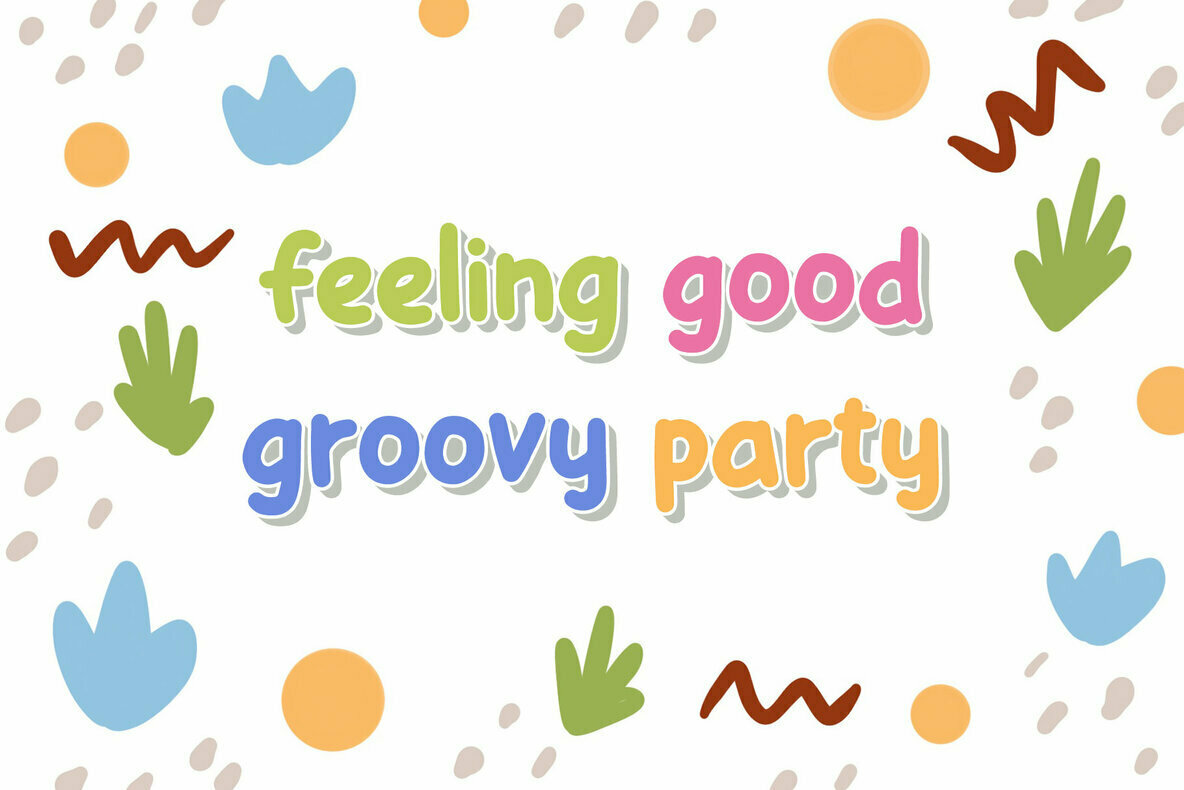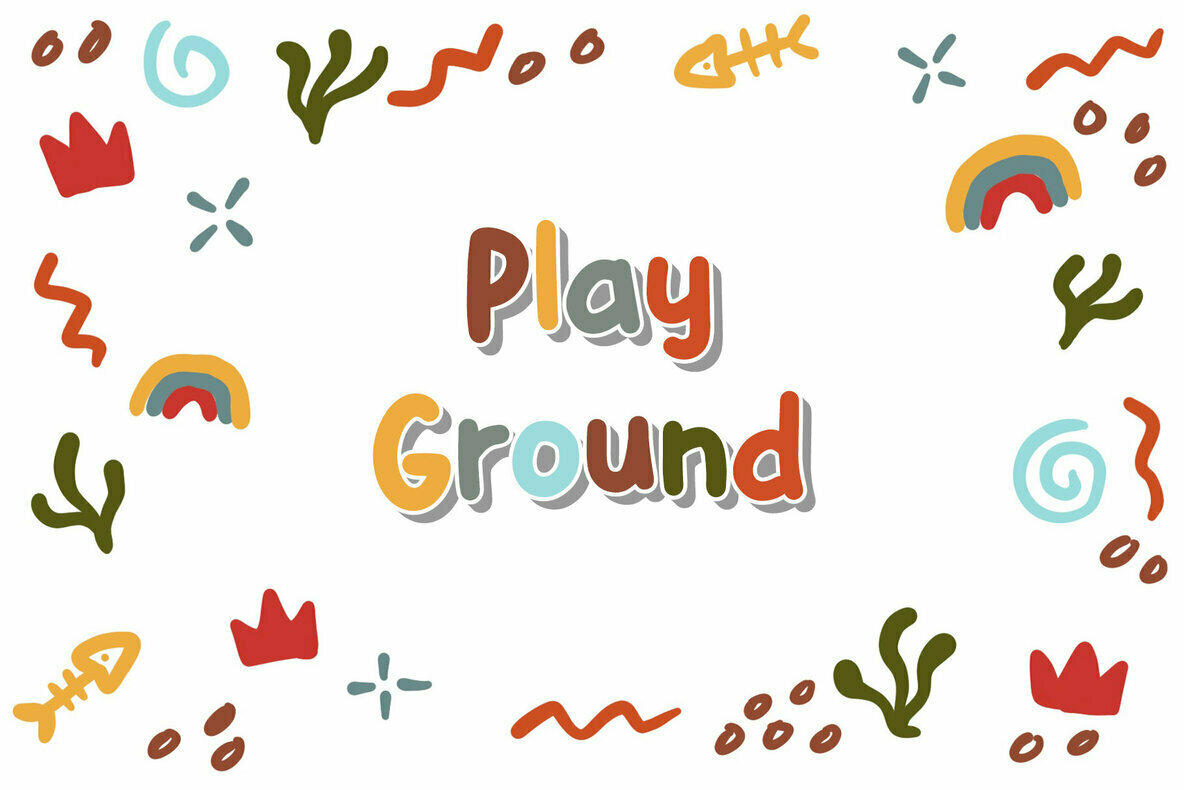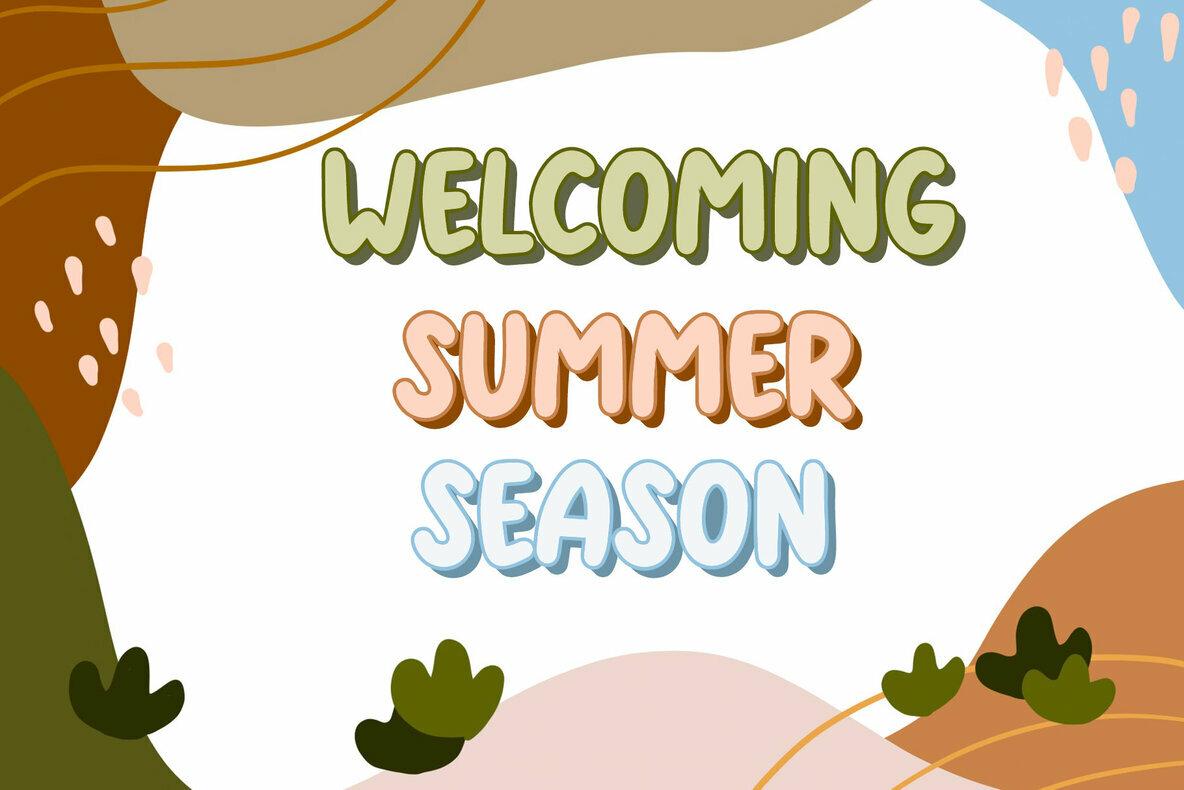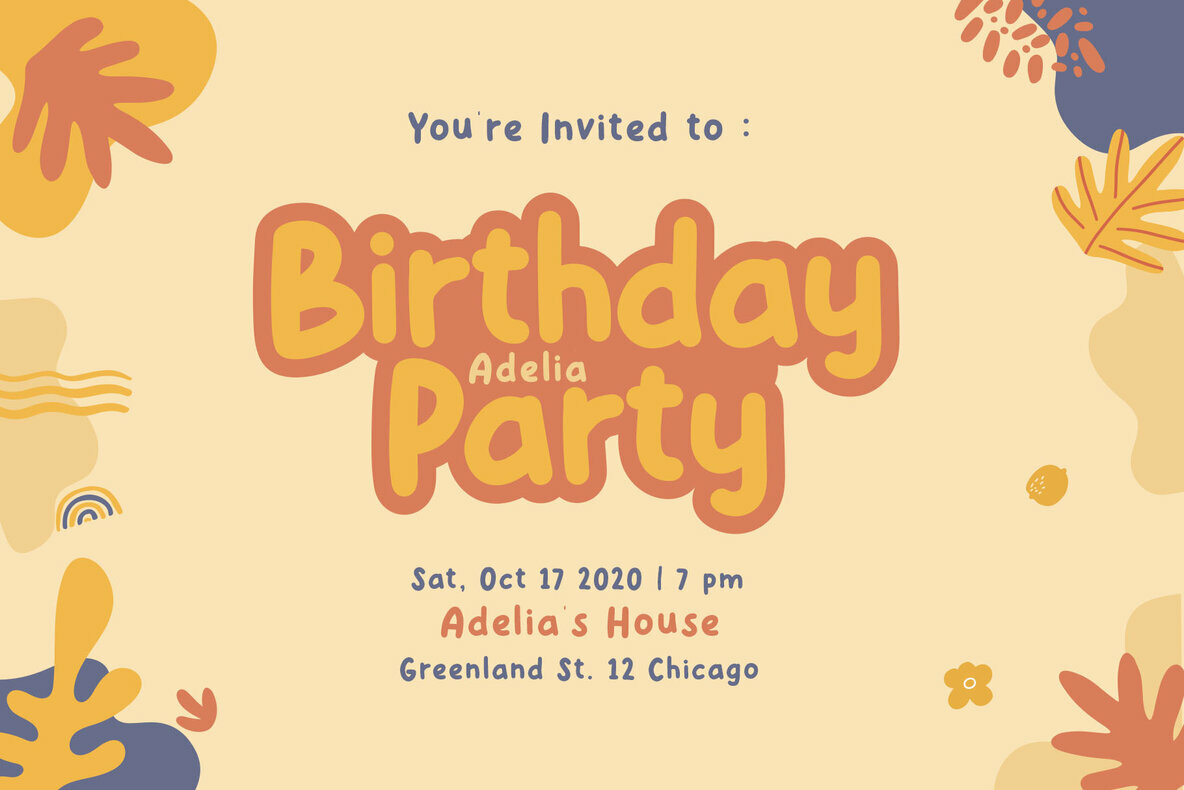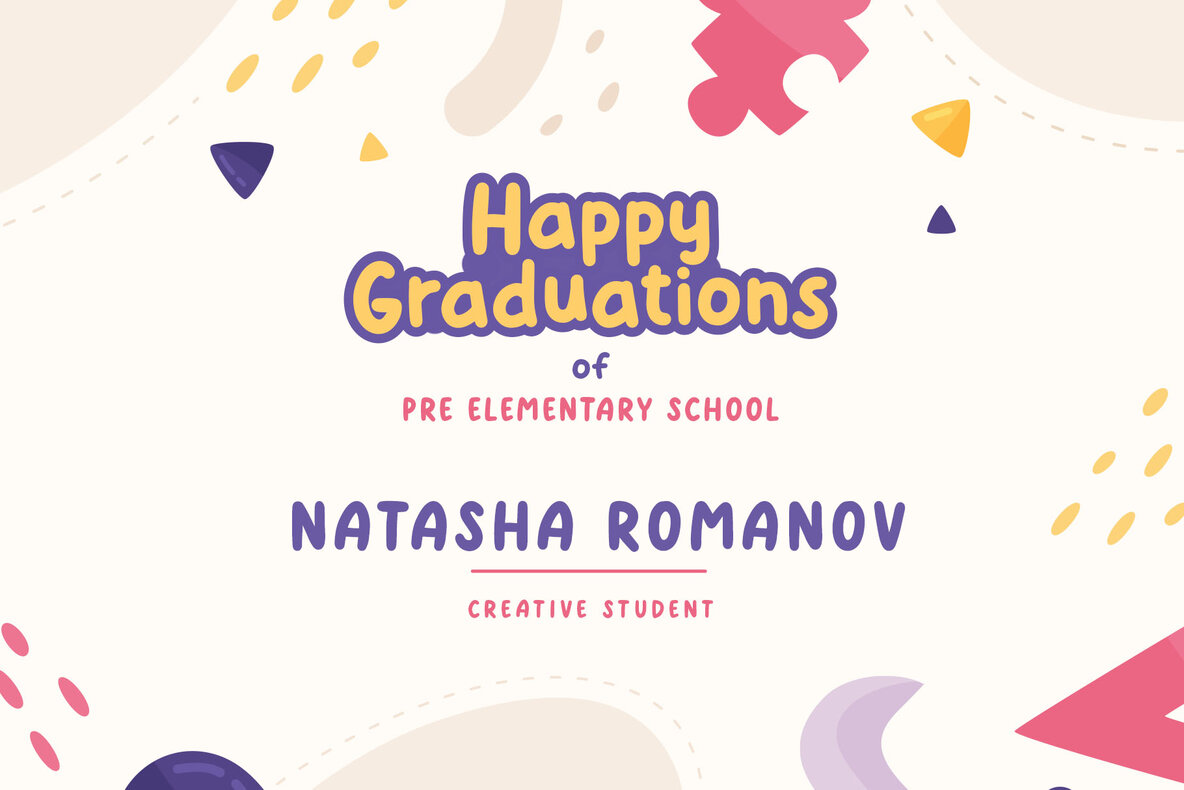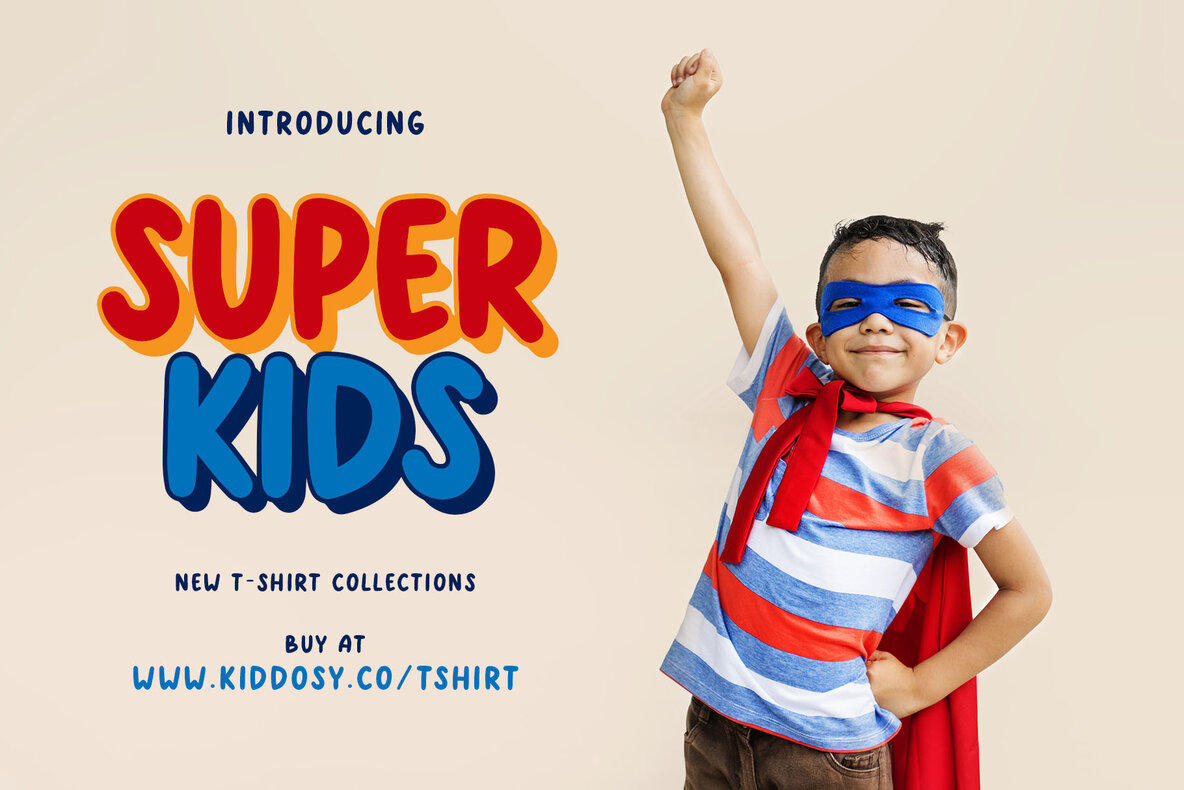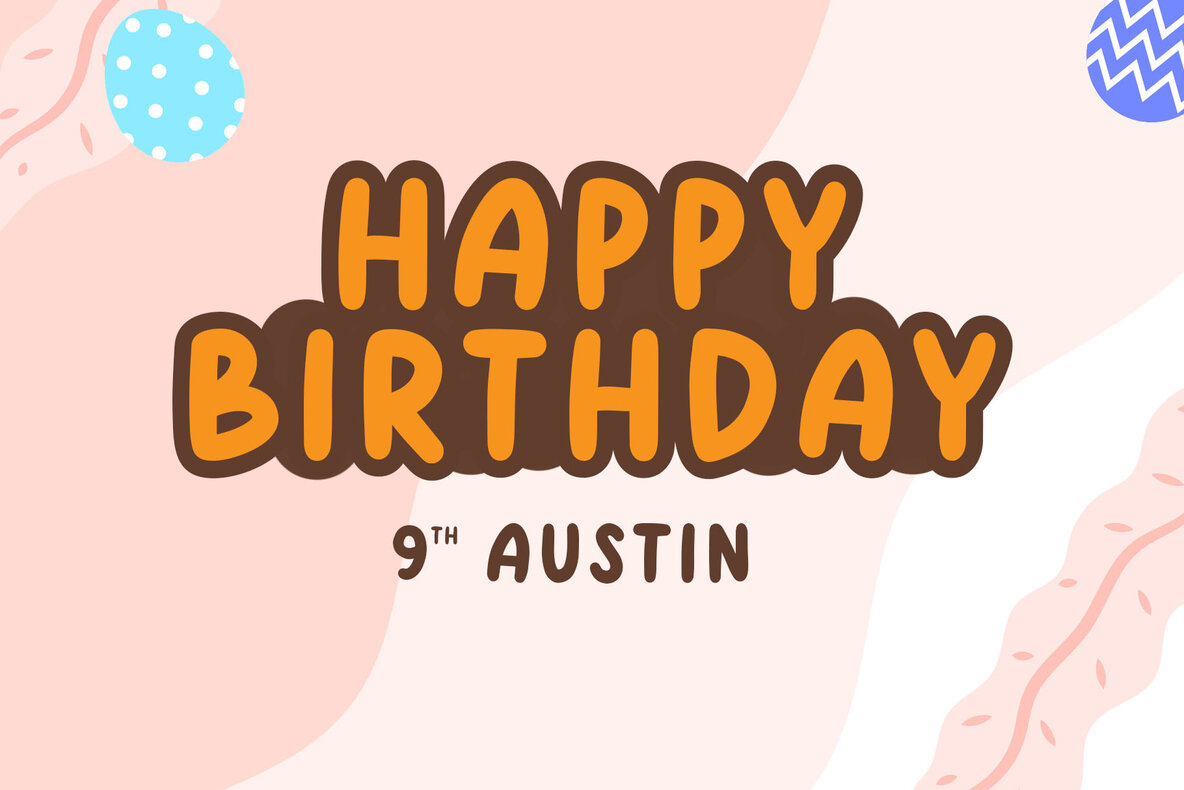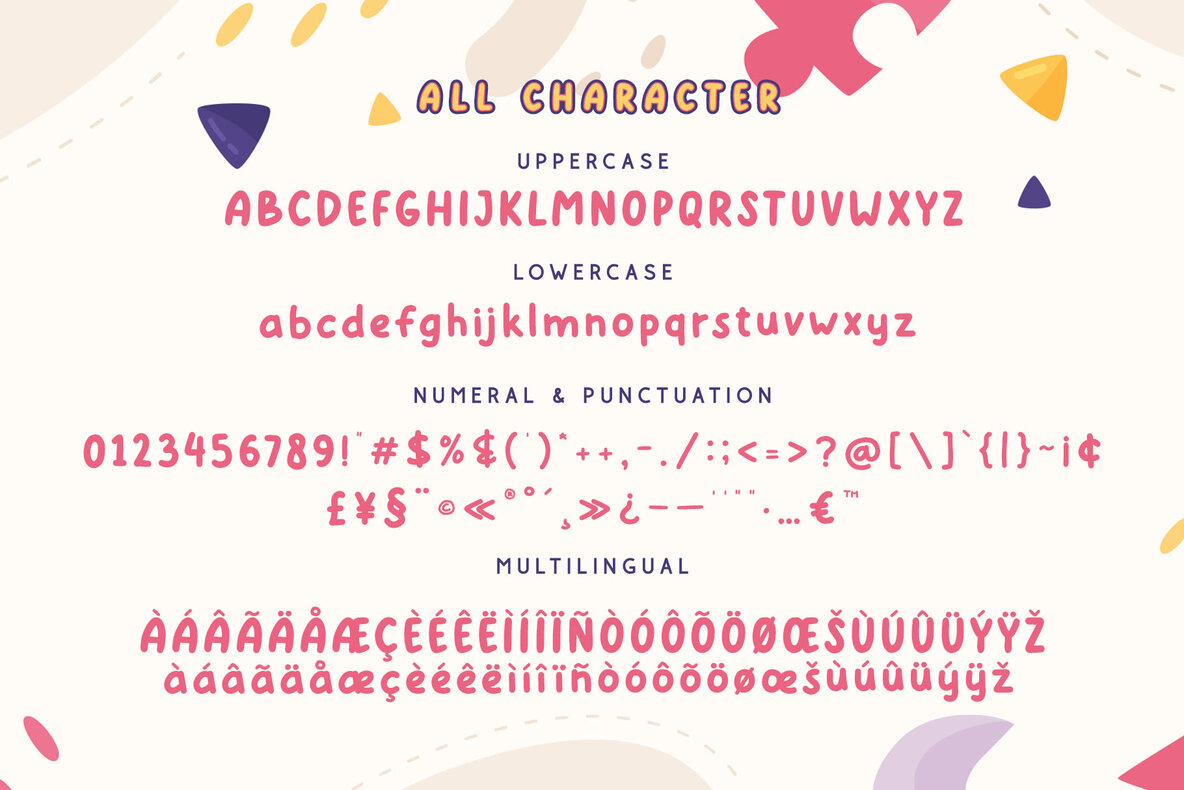
Kiddosy - Layered Display Font
The Kiddosy Layered Display Font by Craft Supply Co. is a compelling choice for those in pursuit of a bold sans serif with versatility. It features a selection of five styles including solid and outlined versions, making it an excellent fit for logos, greeting cards, and posters. Kiddosy also enhances branding, stationery, and modern envelope lettering, ensuring every project achieves a trendy and unique appearance. Ideal for embedding a contemporary twist on traditional projects, Kiddosy pairs seamlessly with book designs, hand-drawn and watercolor themes, craft designs, and DIY endeavors. Its ability to straddle vintage aesthetics with a pop sensibility makes it perfect for book titles and wedding fonts alike.Kiddosy: Bold Sans Serif for Dynamic Design